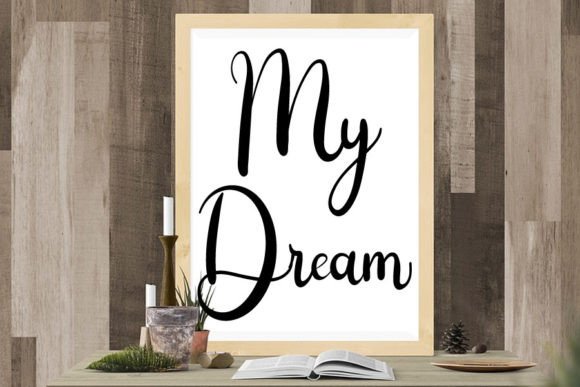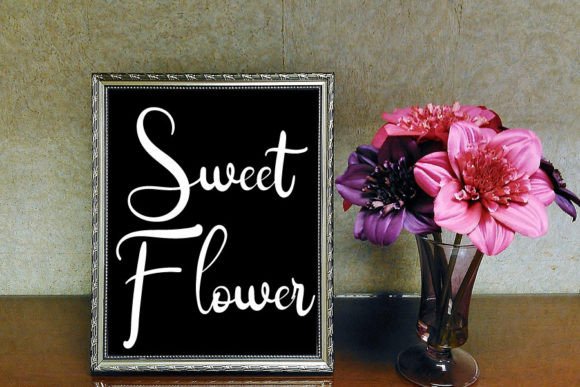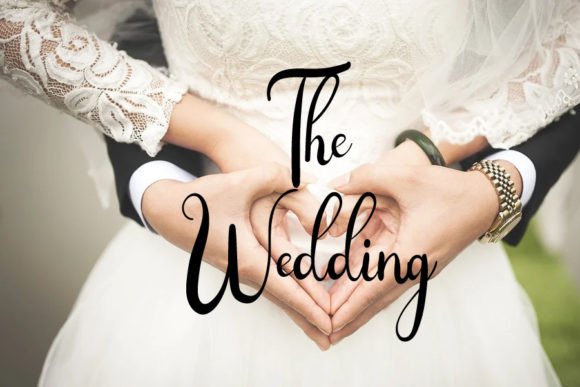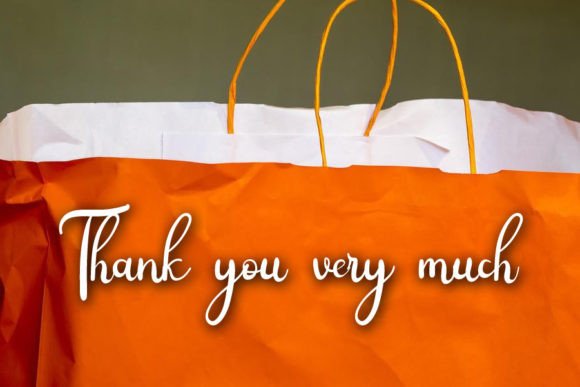
The Perfect Font for Your Next Design Project
Have you ever found yourself staring at a blank canvas, waiting for that perfect font to bring your design to life? That’s exactly what happened to me last week when I was working on a project, and I stumbled upon the Attribute Signature Font. Its clean and elegant lines immediately caught my attention, and I knew I had to learn more.
The Attribute Signature Font is a versatile and beautiful font that’s perfect for a variety of design purposes, from YouTube banners to wedding invitations. Its simplicity and uniqueness make it stand out from other fonts, and it’s sure to give your business the edge it needs to progress and develop. Whether you’re a seasoned designer or just starting out, the Attribute Signature Font is a valuable addition to your toolkit.
- Unique Characteristics: The font features a distinctive, hand-drawn look with subtle imperfections, giving it a personal and authentic feel that’s perfect for signatures.
Attribute Signature Font Review
As a designer, I’ve had the chance to work with a variety of fonts, and the Attribute Signature Font is one of the more interesting ones I’ve come across. ✨ One of the things that works well in this font is its unique blend of modern and vintage elements. It has a distinctive look that’s sure to grab attention, and it’s particularly well-suited for designs that need a touch of sophistication and elegance.
Here are some specific things that I like about this font:
- ✨ The intricate details and flourishes that give it a high-end feel
- ✨ The wide range of weights and styles, making it easy to find the perfect version for any design
- ✨ The font’s ability to work well in both digital and print applications
Of course, no font is perfect, and the Attribute Signature Font is no exception. ⚠️ One of the limitations is that it can be a bit overwhelming to read, especially in large blocks of text. Additionally, the font’s complexity can make it difficult to pair with other fonts or design elements.
Overall, I think the Attribute Signature Font is a great choice for designers who want to add a touch of luxury and sophistication to their work. While it may not be suitable for every design project, it’s definitely worth considering for those that require a high-end look and feel.
Use the Attribute Signature Font to add a touch of elegance to your designs.
Use the Attribute Signature Font for:
Business cards and letterheads.
Branding and marketing materials.